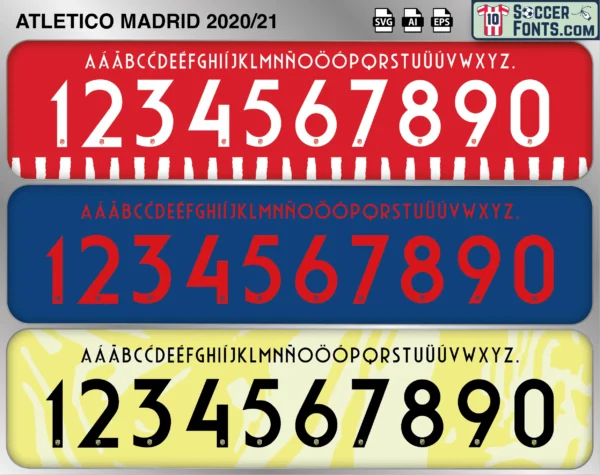
Atletico Madrid 2020-21 Font
The Atletico Madrid 2020-21 font is an editable soccer jersey lettering design in vector format inspired by the Atletico Madrid kit style used during the 2020-21 football season. This football font artwork is prepared for football shirt recreations, custom jersey projects, football kit mockups and sports graphic design workflows.
The 2020-21 season became one of the most memorable campaigns of the Diego Simeone era as Atletico Madrid returned to the top of Spanish football. The squad featured Luis Suárez, João Félix, Marcos Llorente, Koke, Yannick Carrasco, Jan Oblak, José María Giménez and Ángel Correa. Suárez arrived from FC Barcelona before the season and immediately made a decisive impact, bringing experience, leadership and crucial goals to Atletico’s title challenge. Throughout the campaign, Atletico combined defensive organization with attacking efficiency, spending much of the season at the top of the La Liga table despite intense competition from Real Madrid and FC Barcelona.
The Atletico Madrid 2020-21 font became associated with Atletico’s first La Liga title since the historic 2013-14 season. Simeone’s side displayed resilience during a demanding campaign and secured the championship on the final day of the season. Suárez scored several decisive goals throughout the title race and finished as one of the team’s most influential players, while Oblak once again established himself among the best goalkeepers in world football. Atletico Madrid shirts from the 2020-21 season remain highly sought after among football shirt collectors and supporters because of their connection to the club’s eleventh Spanish league title, Suárez’s remarkable contribution and one of the greatest achievements of the Simeone era. The Atletico Madrid 2020-21 font reflects a championship-winning season that reinforced Atletico’s place among the elite clubs of European football.